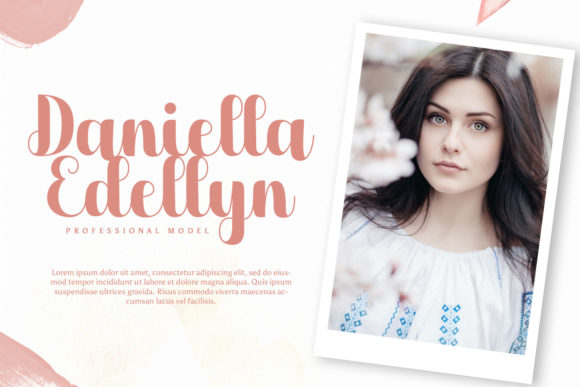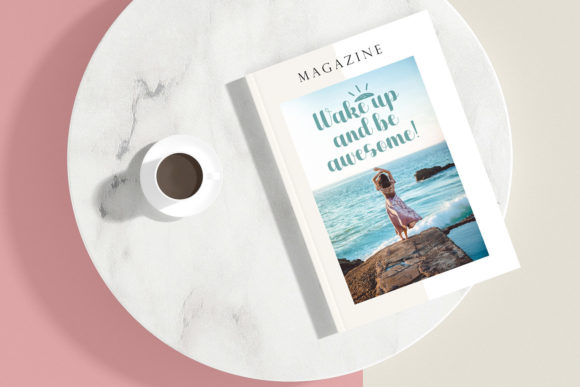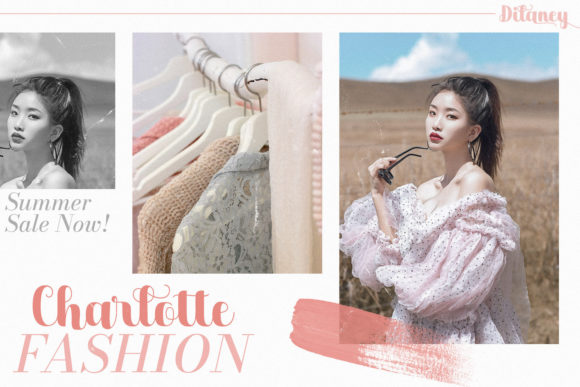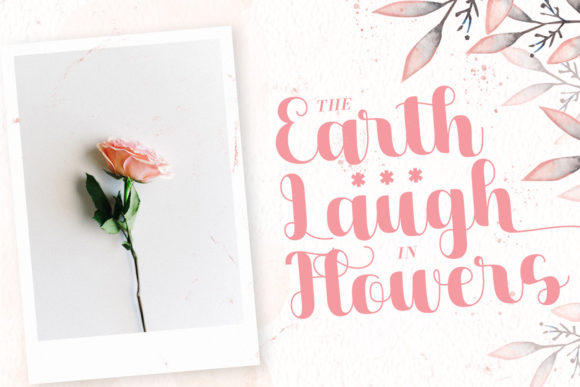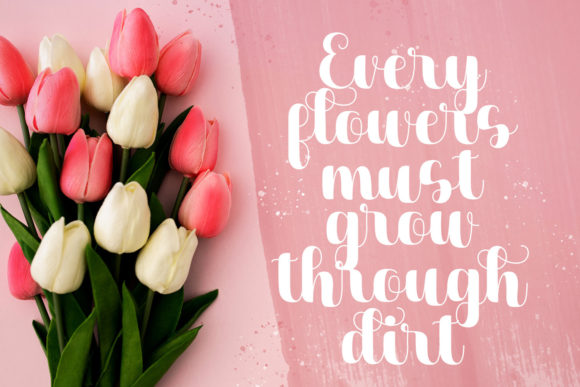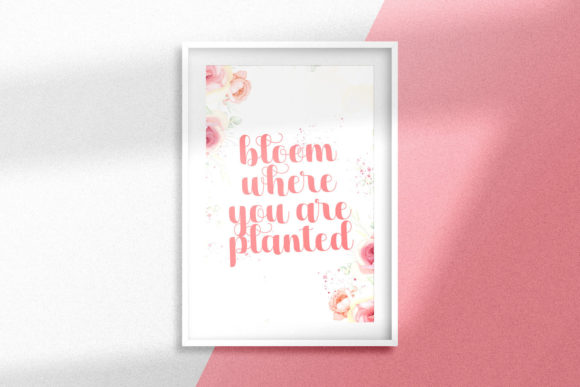
Dilaney Font: A Delicate and Sweet Handwritten Font for Your Creative Projects
In the world of typography, fonts play a crucial role in conveying the tone and personality of a brand or creative project. If you’re a designer, crafter, or DIY enthusiast looking for a unique and charming font to add a personal touch to your work, look no further than Dilaney Font. This beautiful, handwritten font is designed to bring a touch of elegance and whimsy to your projects, making it perfect for a wide range of creative applications.
What is Dilaney Font?
Dilaney Font is a delicate and sweet handwritten font that embodies charm and authenticity. Its unique, cursive script is carefully crafted to add a personal and human touch to your designs, making it perfect for projects that require a distinctive and eye-catching look. Whether you’re creating a logo, branding materials, or craft projects, Dilaney Font is sure to impress.
Key Features of Dilaney Font
- Delicate and Sweet Design: Dilaney Font features a beautiful, cursive script that is both delicate and sweet. Its intricate details and flowing lines make it perfect for adding a touch of elegance to your designs.
- Handwritten Authenticity: Unlike generic, computer-generated fonts, Dilaney Font is a genuine handwritten font that brings a personal and human touch to your projects.
- Unique and Versatile: Dilaney Font is perfect for a wide range of creative applications, from logos and branding materials to craft projects and DIY designs.
- Easily Readable: Despite its delicate design, Dilaney Font is surprisingly easy to read, making it perfect for body text and other applications where legibility is important.
Uses for Dilaney Font
Dilaney Font is a versatile font that can be used for a wide range of creative projects, including:
- Logo Design: Add a touch of elegance and sophistication to your logo with Dilaney Font.
- Branding Materials: Use Dilaney Font to create consistent and recognizable branding materials, such as business cards, letterheads, and brochures.
- Craft Projects: Add a personal touch to your craft projects, such as handmade cards, gift tags, and scrapbooking pages.
- DIY Designs: Use Dilaney Font to add a unique and eye-catching touch to your DIY designs, such as posters, flyers, and social media graphics.
Why Choose Dilaney Font?
With so many fonts to choose from, why should you choose Dilaney Font for your creative projects? Here are just a few reasons:
- Unique and Distinctive: Dilaney Font is a one-of-a-kind font that will help your projects stand out from the crowd.
- Elegant and Sophisticated: Dilaney Font adds a touch of elegance and sophistication to your designs, making it perfect for high-end brands and creative projects.